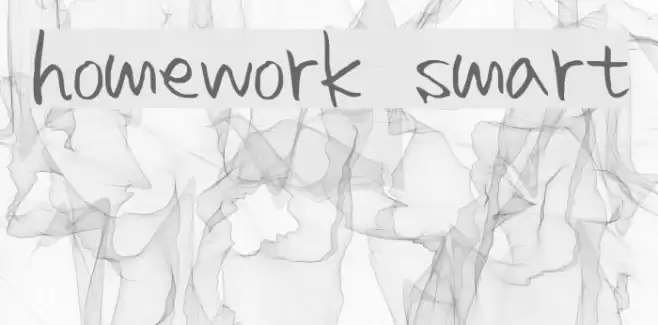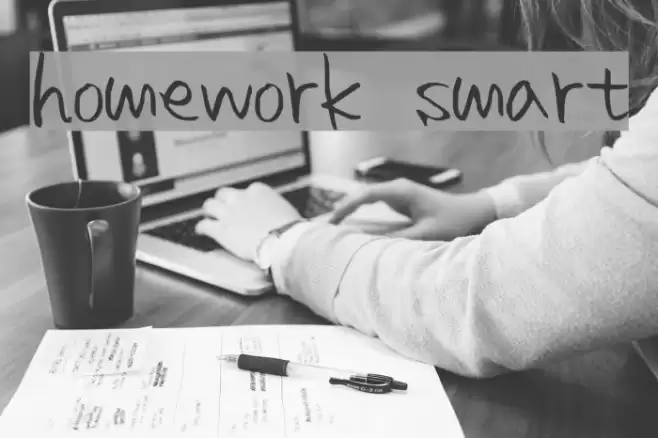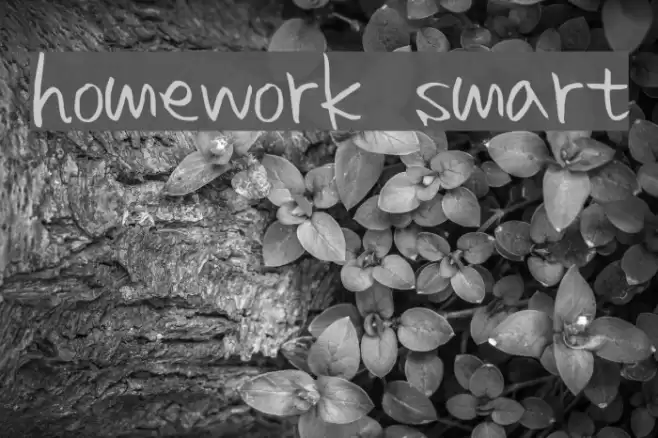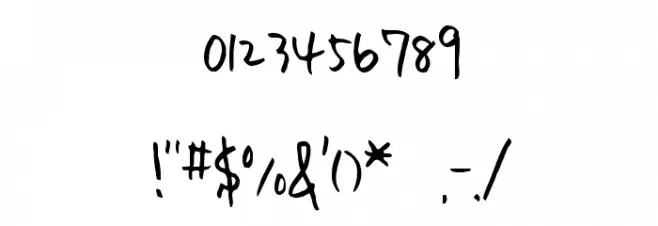
homework smart Font
homework smart Description
This font features a casual, handwritten style that mimics the look of natural handwriting. The characters have a playful and informal appearance, with slightly irregular strokes that add to its charm. The uppercase and lowercase letters are well-balanced, maintaining a consistent flow throughout. Numbers and special characters are included, matching the overall aesthetic. The font's organic feel makes it suitable for projects that require a personal touch or a relaxed vibe.
A casual, handwritten font with a playful and informal style from Handwritten fonts.
- Proposed Projects: Ideal for greeting cards, personal notes, informal invitations, children's books, and creative projects that benefit from a personal touch.
- Overall Style: Casual, Playful
- Use Case: Logos, Headlines, Informal text